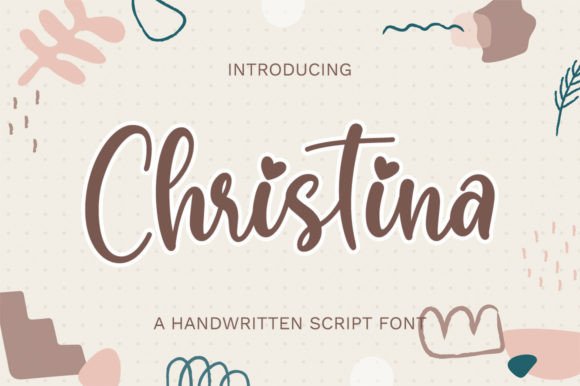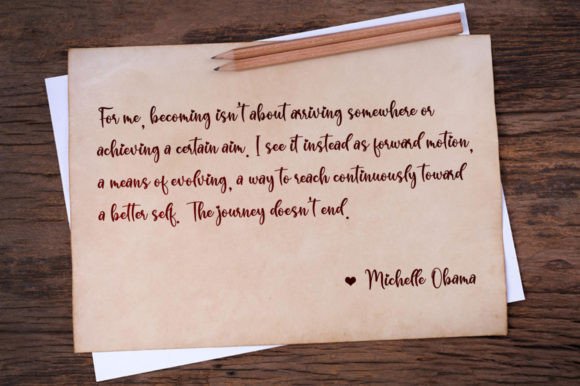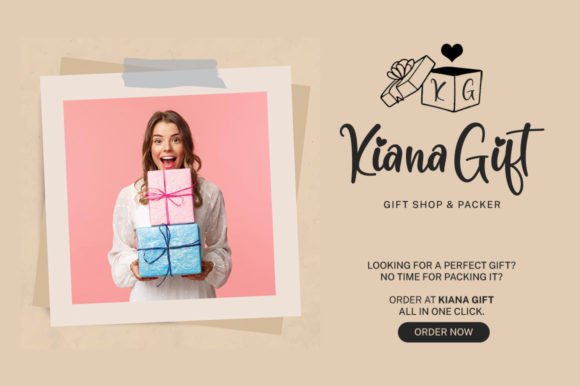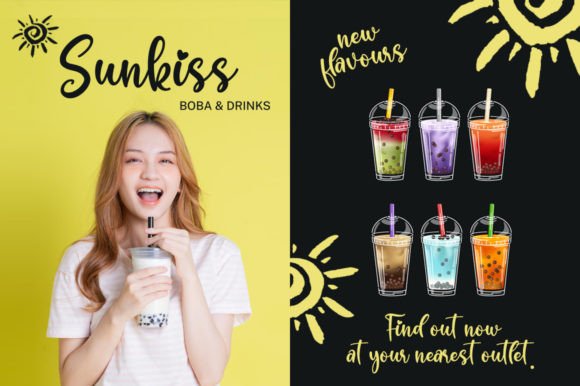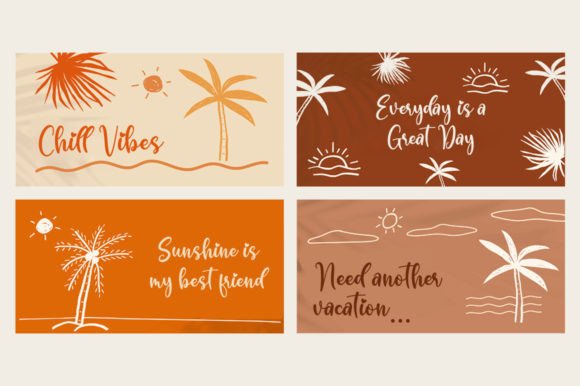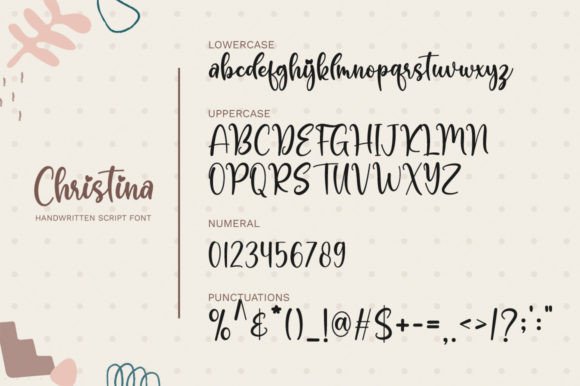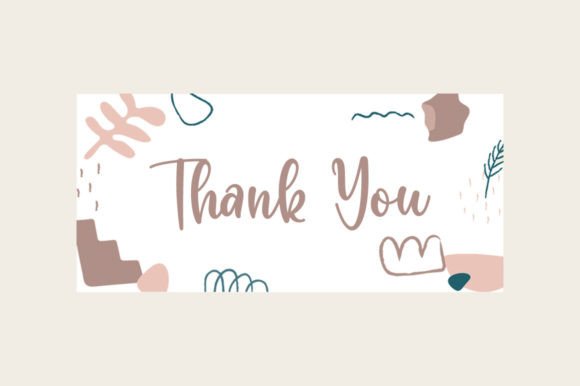
Christina Font
Christina Font: Fun and Smart Handwriting for Stylish Designs
“Christina” is a charming handwritten font that brings a fun and smart-looking style to your designs. It’s perfect for various creative projects, from invitations to business cards.
Key Features of Christina Font
• Stylish Appearance: Christina combines fun with a smart, chic look.
• Versatile Use: Suitable for many projects, including greeting cards and logos.
• Personalized Touch: Adds a customized feel to your work.
Invitations and Thank-You Cards
Christina’s stylish script is ideal for creating engaging invitations and heartfelt thank-you notes.
Quotes and Social Media
Use Christina to design eye-catching quotes for social media posts that stand out and engage your audience.
The font’s smart look makes it perfect for creating memorable logo designs and branding materials.
Why Choose Christina Font?
Christina offers more than just stylish letters. Here’s why it stands out:
• Creates a chic and engaging feel in your designs
• Versatile enough for both personal and professional projects
• Helps make your work more memorable and sophisticated
By using Christina, you open up new design possibilities. Its smart style works well in many contexts, from business cards to poster designs. The font’s ability to convey personality can inspire creative ideas and help you approach projects from a fresh perspective.
Christina in Digital Design
In the digital realm, Christina excels in creating engaging website headers and social media graphics. Its handwritten style can help capture attention and increase engagement on various online platforms.
If you’re looking for a font that’s both fun and smart-looking, Christina is an excellent choice. It’s perfect for adding a stylish touch to your work, especially for projects that need a personalized, chic feel.
Explore how Christina can transform your designs. From invitations to branding projects, this font brings a charming and sophisticated quality to your creations.